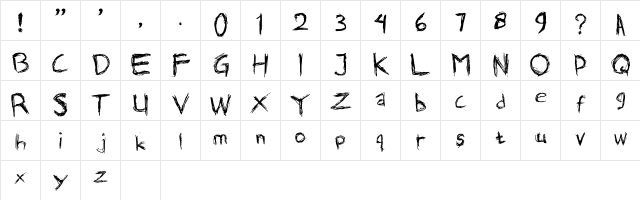
Dl Arsara Demo Regular
Design Context for Dl Arsara Demo Typeface
Dl Arsara Demo is a composed and adaptable typeface that performs quietly and consistently across a wide range of design contexts.
Pro Tip: Use Dl Arsara Demo in both headline and body roles to test its range before committing to a single application.